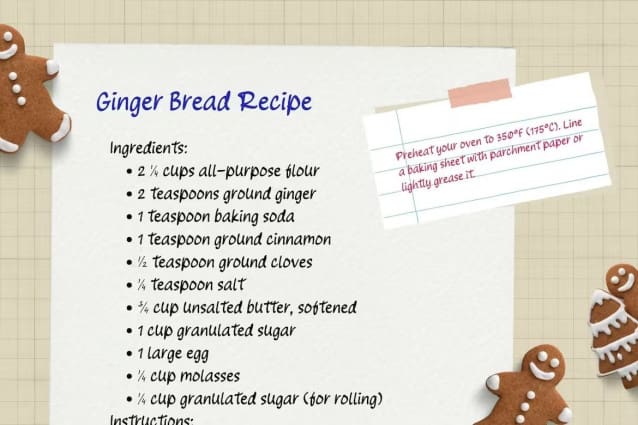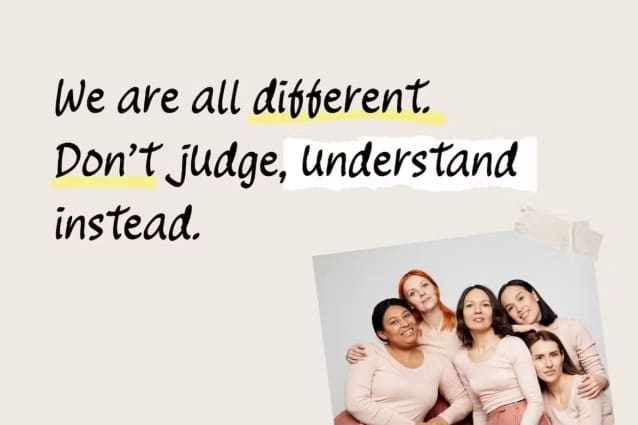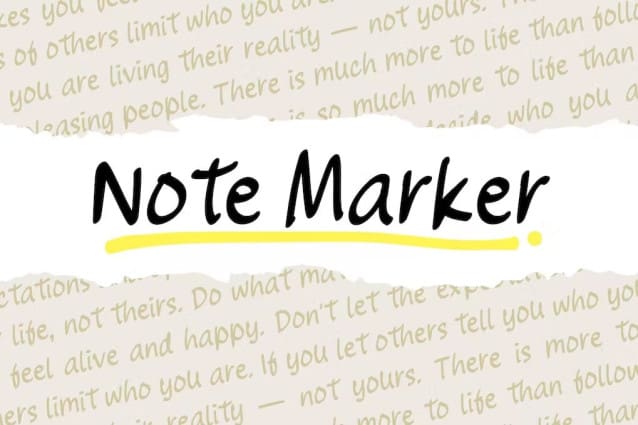
Note Marker Font
Note Marker – Handwritten Note Taking Font, a delightful companion designed to bring a casual and creative touch to your digital notes. Crafted with love, this font adds a lovely and personal flair to your note-taking experience. Whether you’re capturing inspiring ideas, jotting down memories, or planning your dream wedding, the Note Marker font embraces a playful tone that will make your notes shine. With its whimsical strokes and charming style, it effortlessly captures the essence of handwritten beauty. Unleash your creativity and make your notes come alive with the captivating Note Marker font. Let your imagination run wild and bring a touch of loveliness to your every word.